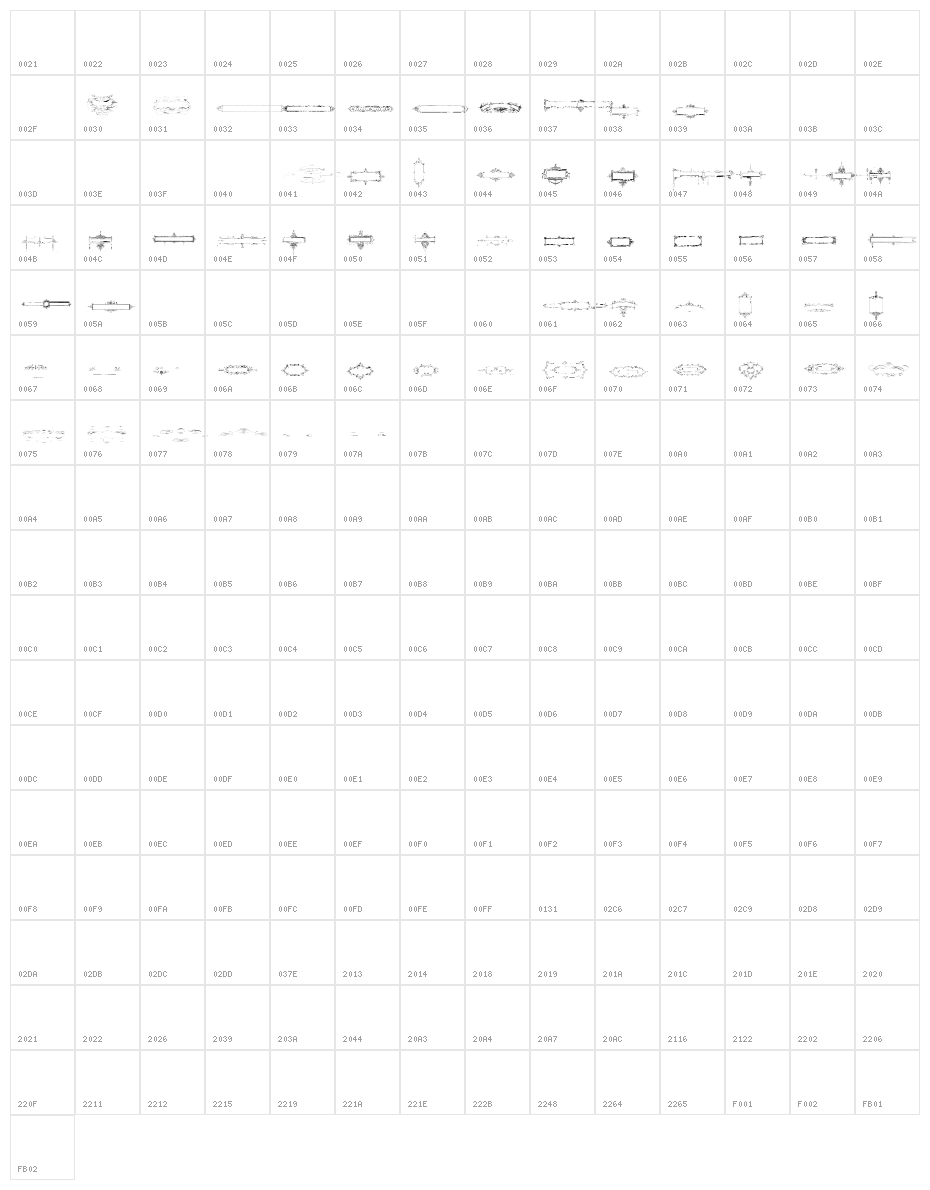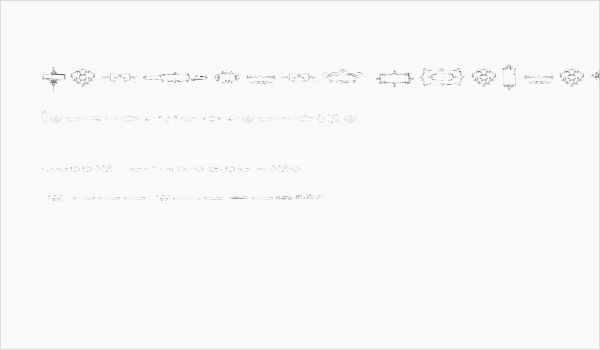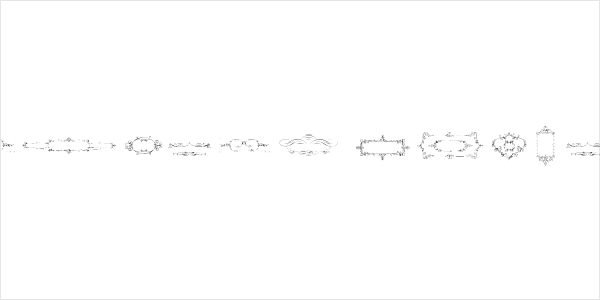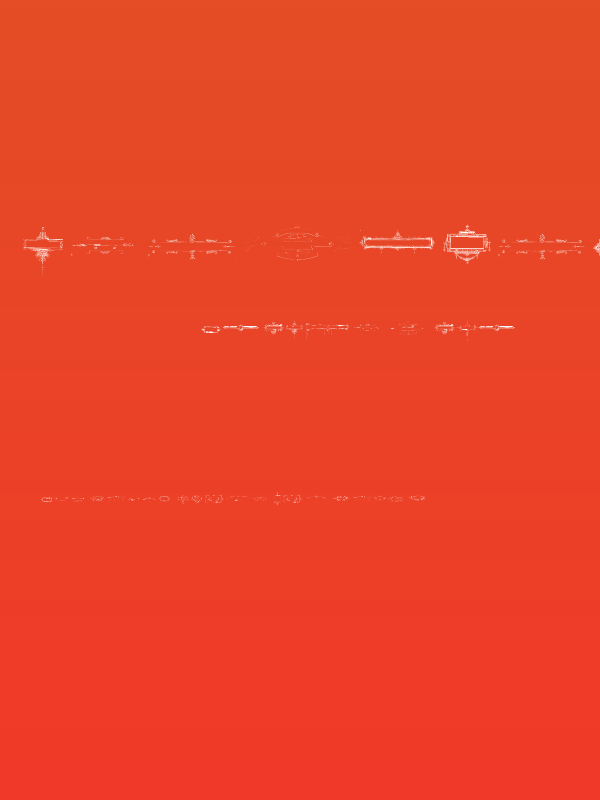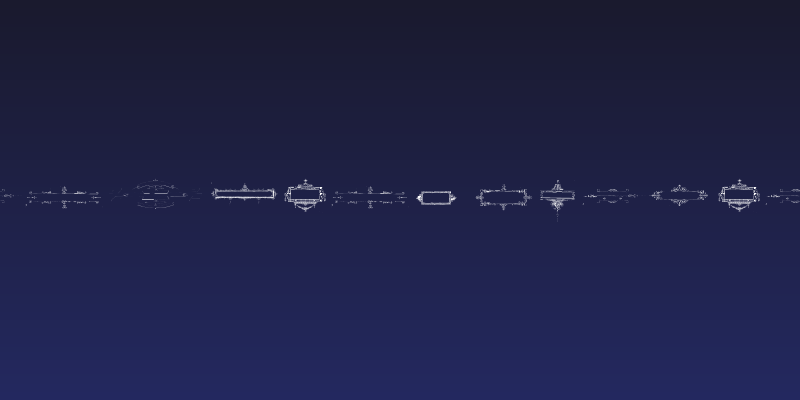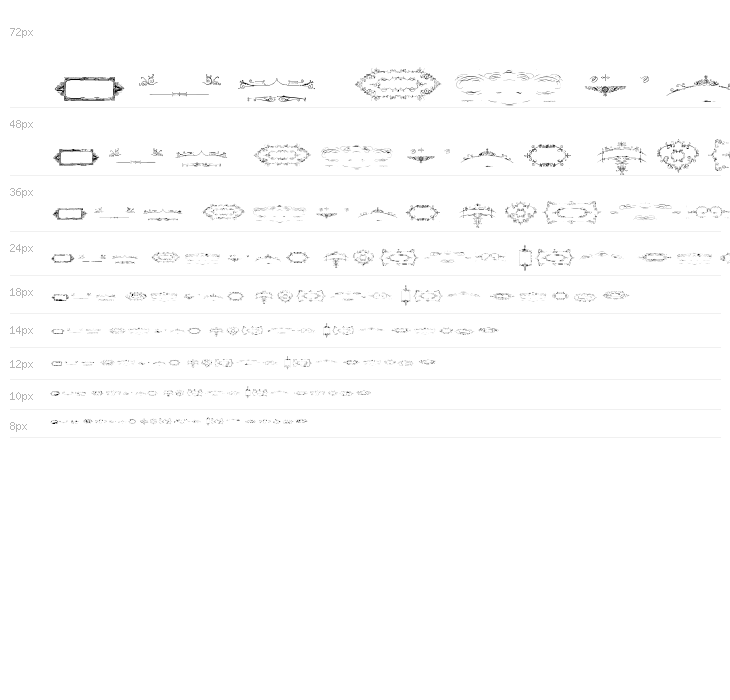
Ornament Borders Font
Ornament Borders Description
A collection of highly decorative, intricate border and ornament glyphs featuring flourishes, scrolls, and symmetrical motifs. The designs are detailed and vintage-inspired, suitable for embellishing documents or invitations.
| Overall Style | Vintage, Decorative |
| Use Case | Borders, Dividers, Decorative accents |
| Proposed Projects | Wedding invitations, certificates, vintage posters, book covers, decorative dividers, branding for luxury products. |